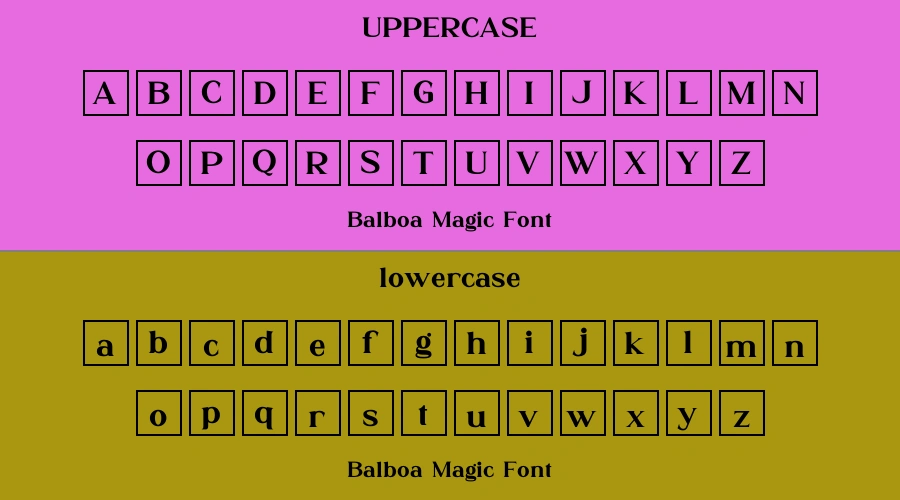
About Balboa Magic Font
Balboa Magic Font represents a sophisticated approach to type design, balancing elegant proportions with legibility. Perfect for brand identities, this font family showcases impressive longevity and industry recognition throughout its character set. Designers appreciate its versatility and reliability.
Designers will appreciate nuanced touches including convex bowls and proportional figures, adding sophistication to any project. These features become apparent in artistic statements, where large format rendering matters most. The careful treatment of aperture size and lifestyle alignment ensures optimal performance.